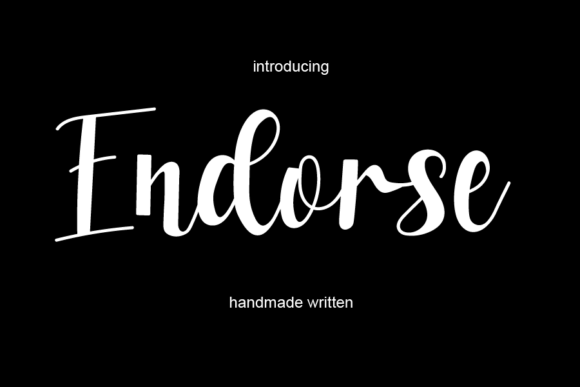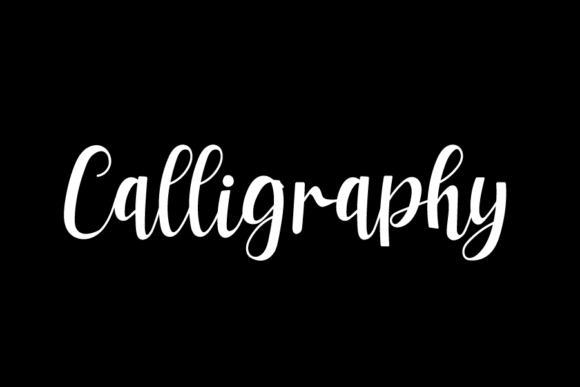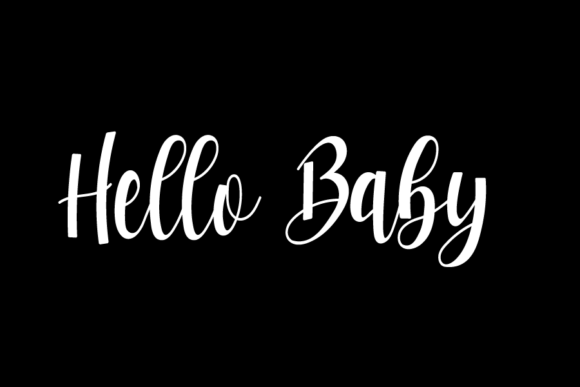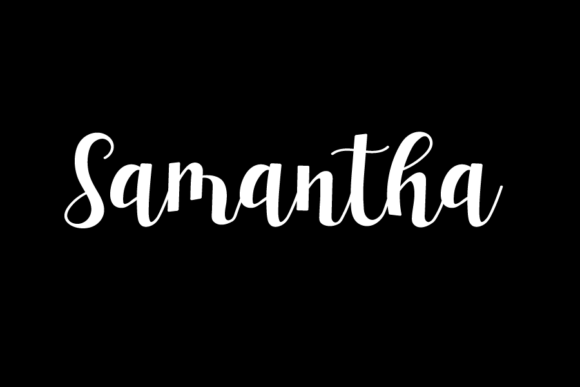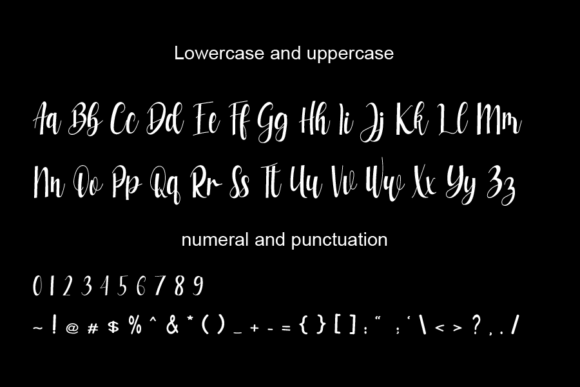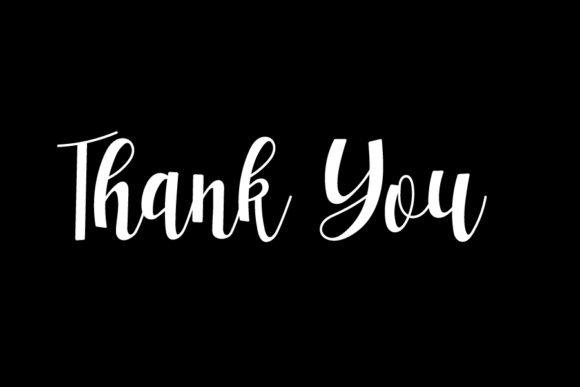
Endorse Font
Endorse is a flowing handwritten font, described by an elegant touch, perfect for your favorite projects. Fall in love with its incredibly distinct and timeless style and use it to create spectacular designs!